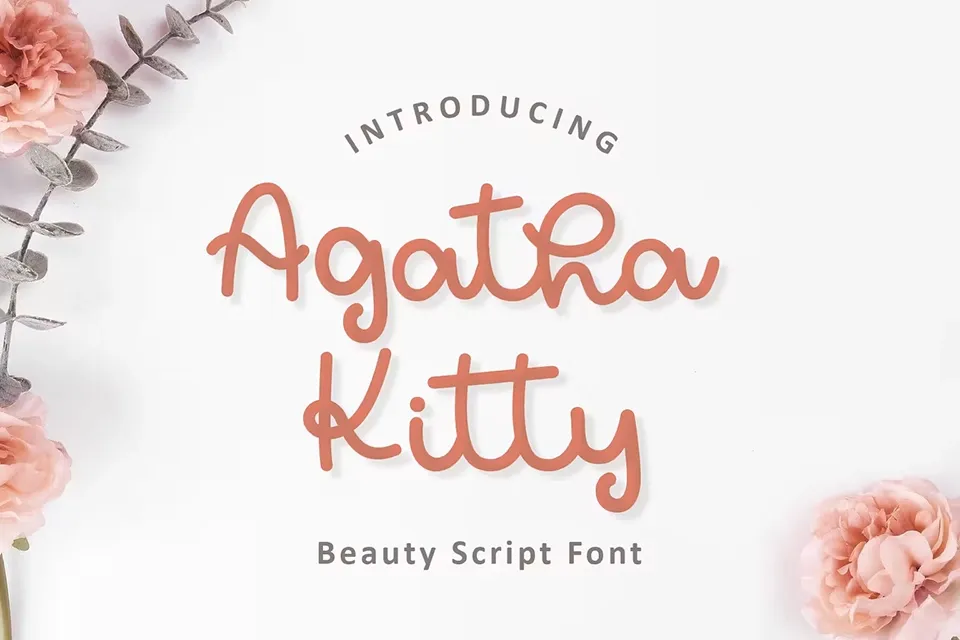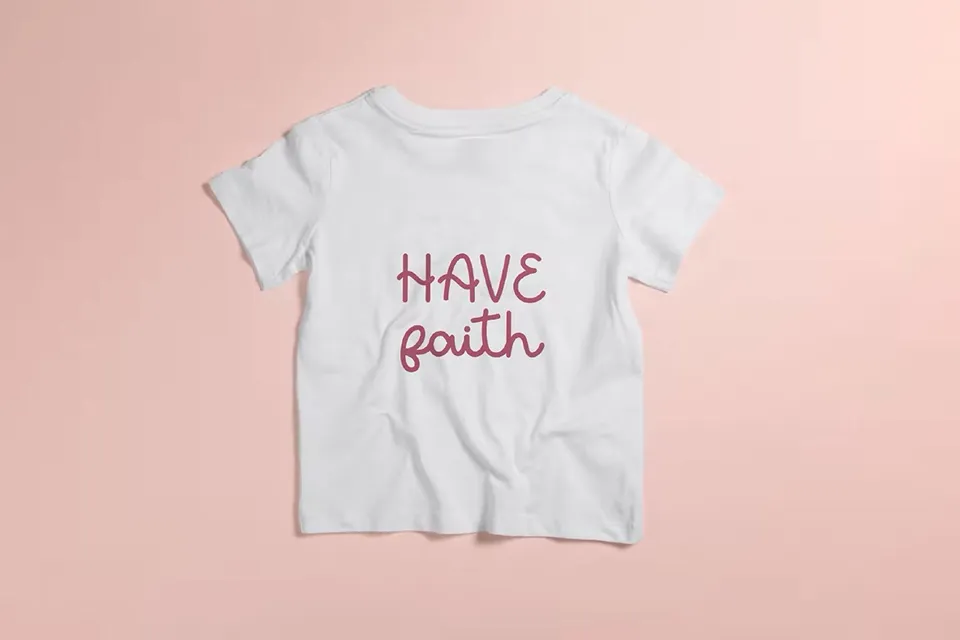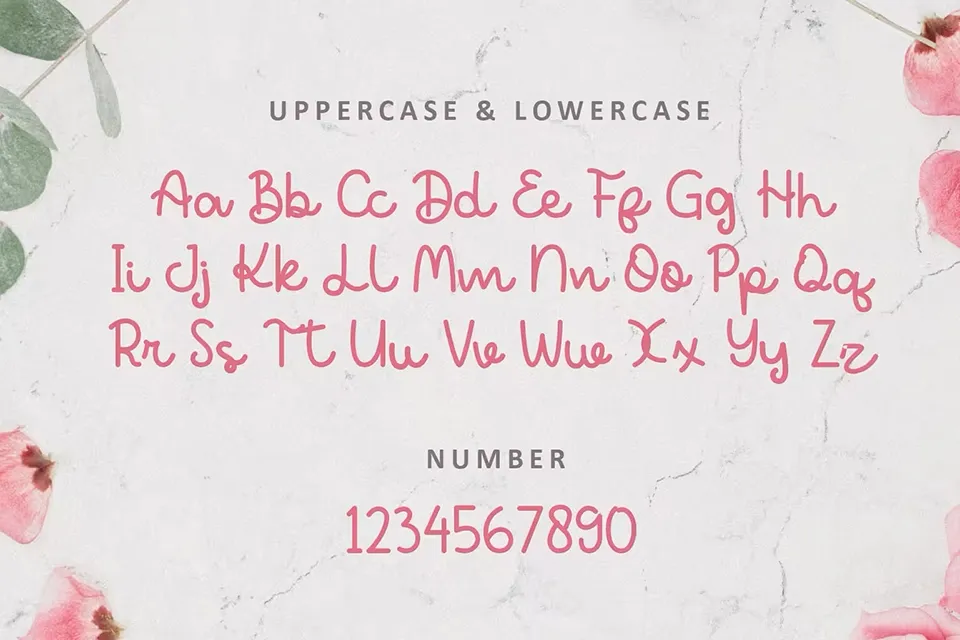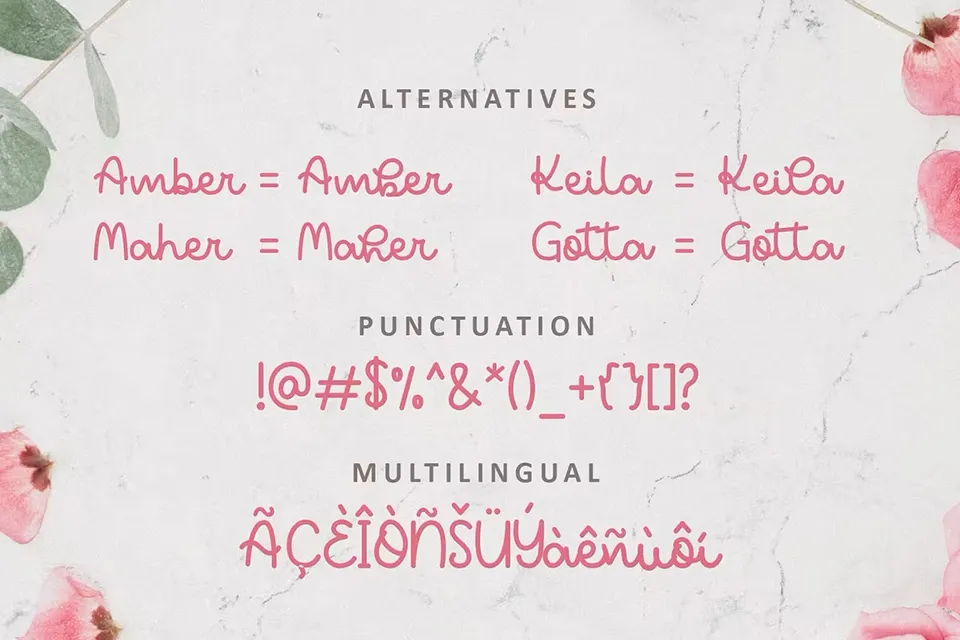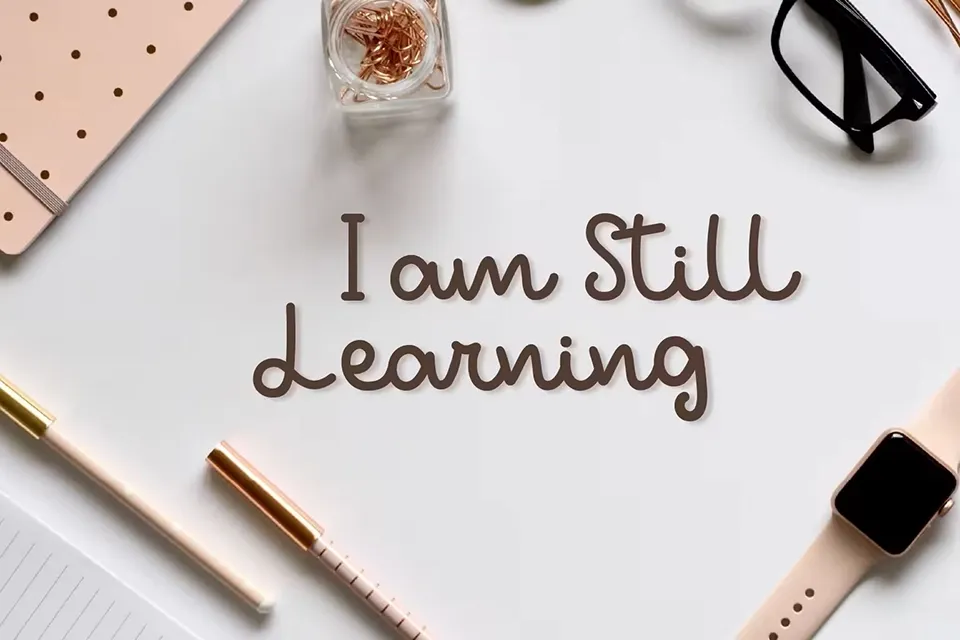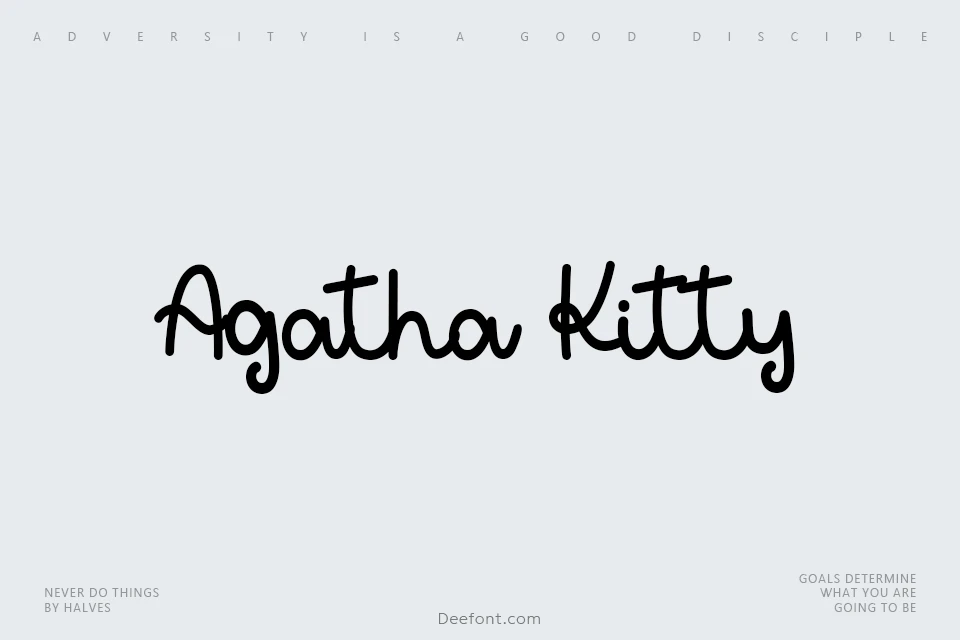
Agatha Kitty Font
Agatha Kitty Font is a beautiful handwriting script font designed to bring a touch of elegance and charm to your creative projects. Its smooth, playful strokes make it perfect for branding, invitations, packaging, and more. Add a friendly and stylish flair to your designs with Agatha Kitty Font.